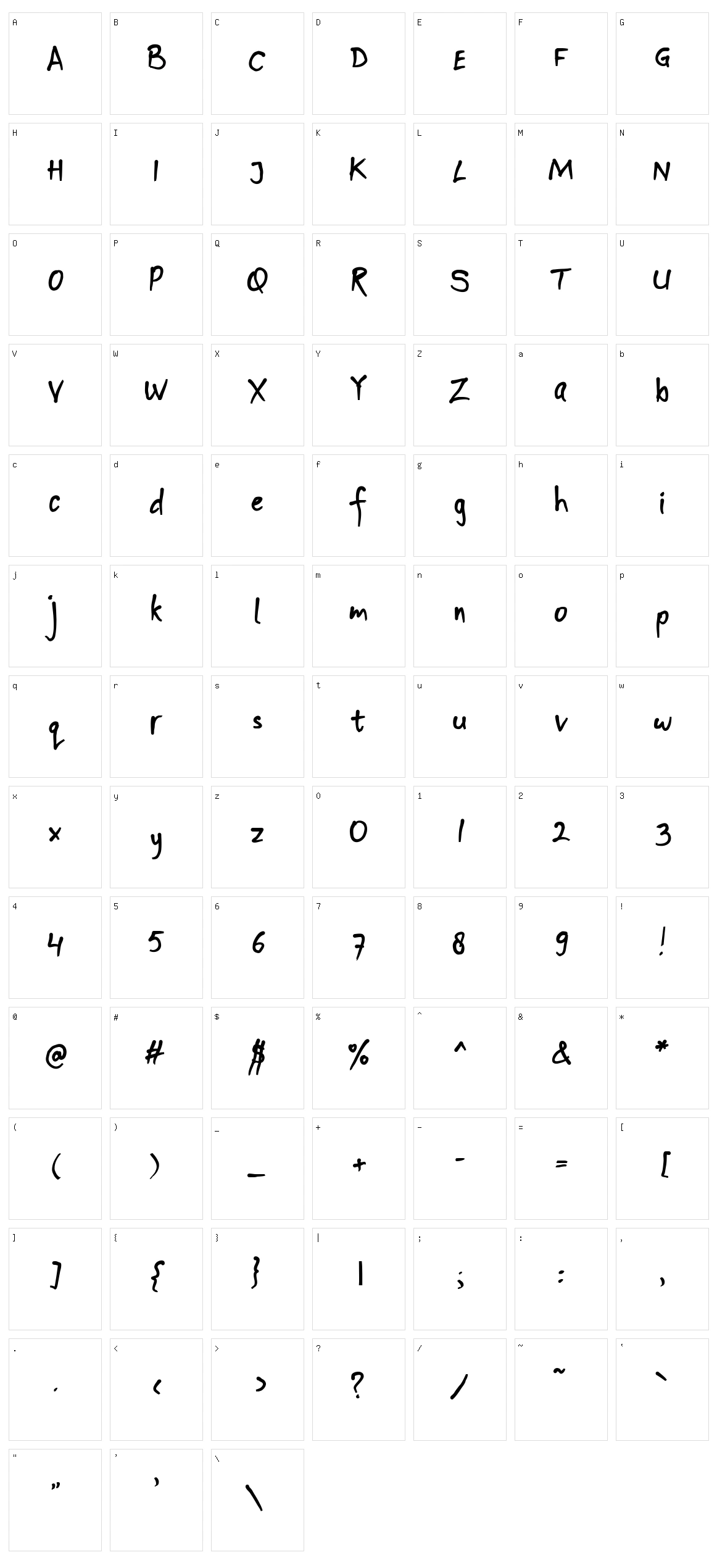
The free font Tictic Play is carefully designed by Midfont Studio, showcasing a thoughtful balance of creativity and usability and falls under the Script font style. When you download the ZIP file, it contains only 23.25 KB of font files, making it lightweight and quick to download. Please review the license details below to understand permitted usage and distribution rights. If license information is not available, we recommend using this font for personal projects only or contacting the author directly for commercial usage permissions.